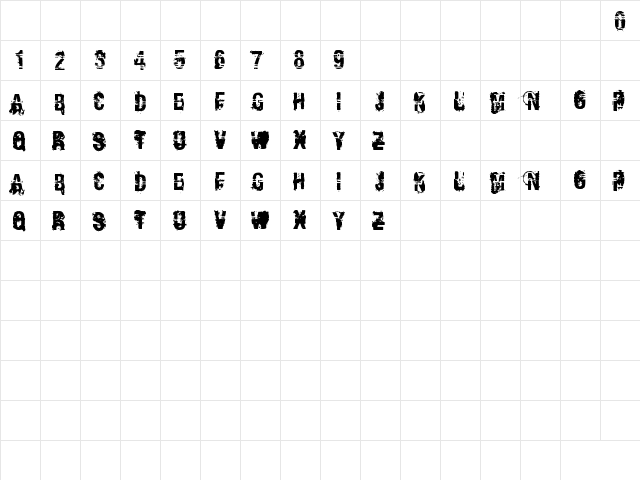
Andy Dufresne Regular
Design Context for Andy Dufresne Typeface
Andy Dufresne is a composed and adaptable typeface that performs quietly and consistently across a wide range of design contexts.